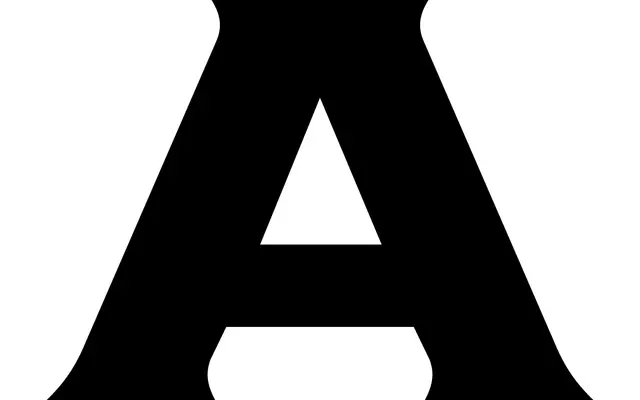
Trusty Serif Wide
A wide, bracketed-serif face designed for legibility at distance and small sizes, pitched as a more readable alternative to Copperplate Gothic.
Part of a trio of Trusty Serif fonts built as utilitarian workhorses, the Wide cut prioritises legibility across curved paths, tight spaces and small sizes. Subtle bracketed serifs give it authority without sacrificing scanning ease, and its wide proportions are calibrated to hold up under awkward typesetting conditions. The family is positioned for signage, branding and any context where tone and readability need to coexist.
The typeface draws explicit comparison to Copperplate Gothic with its wide proportions and subtle bracketed serifs, placing it in the glyphic or inscribed serif tradition designed for legibility at distance and small sizes.